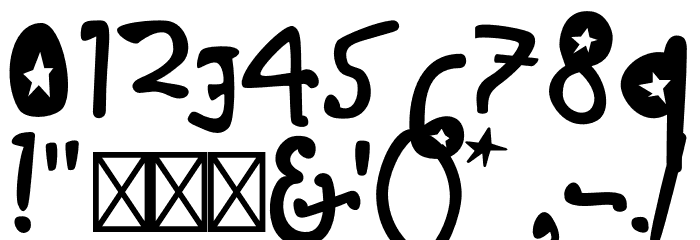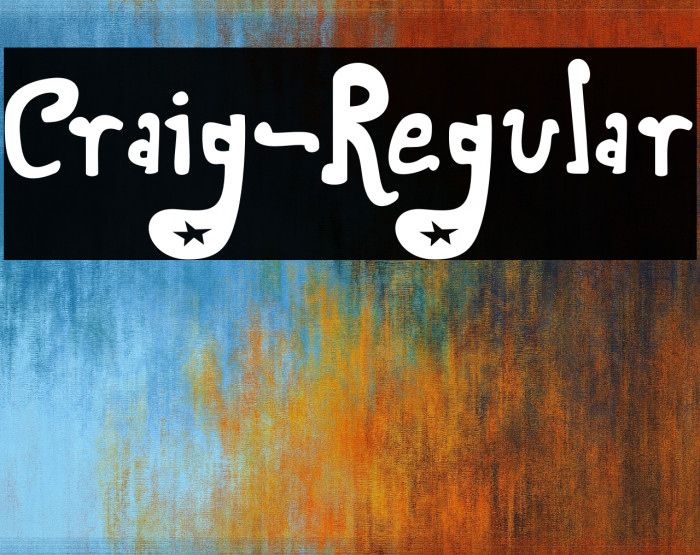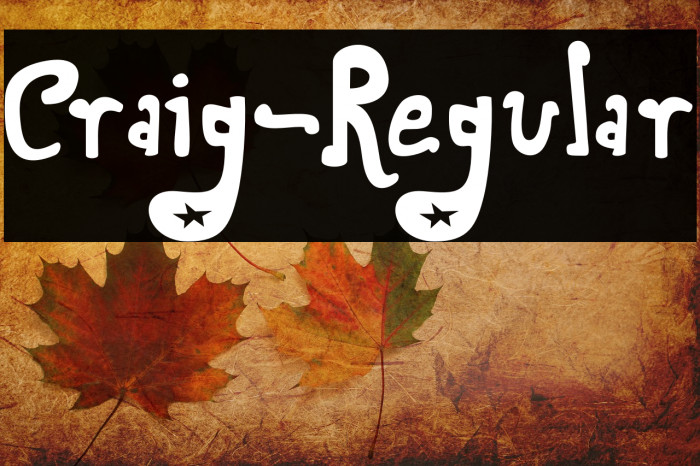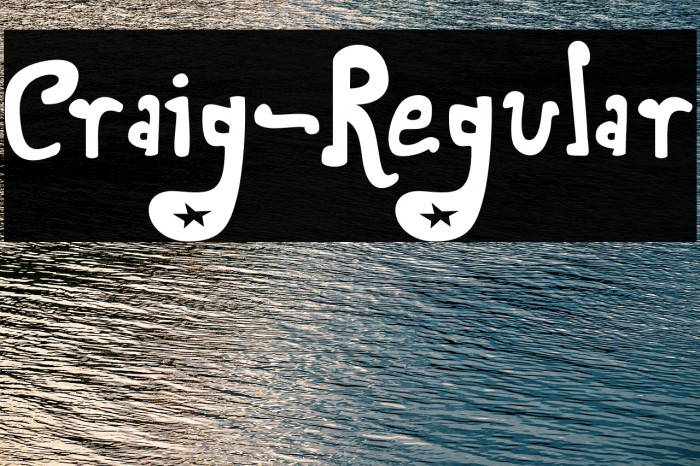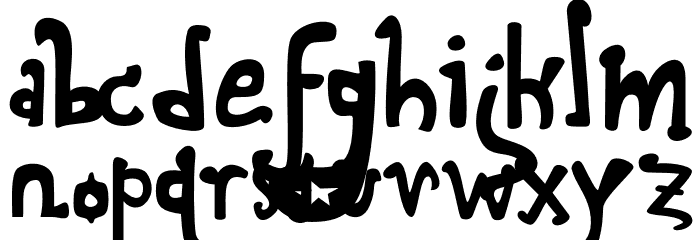
Craig-Regular Font
This font exhibits a playful and whimsical style, characterized by its irregular and bold letterforms. Each character is uniquely crafted with varying stroke thicknesses and quirky details, such as stars embedded within some letters and numbers. The overall appearance is informal and artistic, with a hand-drawn quality that adds a sense of creativity and fun. The font's distinctive features make it stand out, offering a dynamic and lively aesthetic that captures attention. Its bold presence and decorative elements suggest a design that is both expressive and unconventional.
A playful, hand-drawn font with bold, irregular characters and decorative elements.
• Proposed Projects: Ideal for children's books, creative posters, playful branding, and artistic projects.
• Category: Decorative/Display
• Bold: Yes
• Italic: No
• Weight: Bold
• Width: Normal
• Character Spacing: Normal
• Contrast: High
• Overall Style: Whimsical, Artistic
• Use Case: Headlines, Logos, Posters